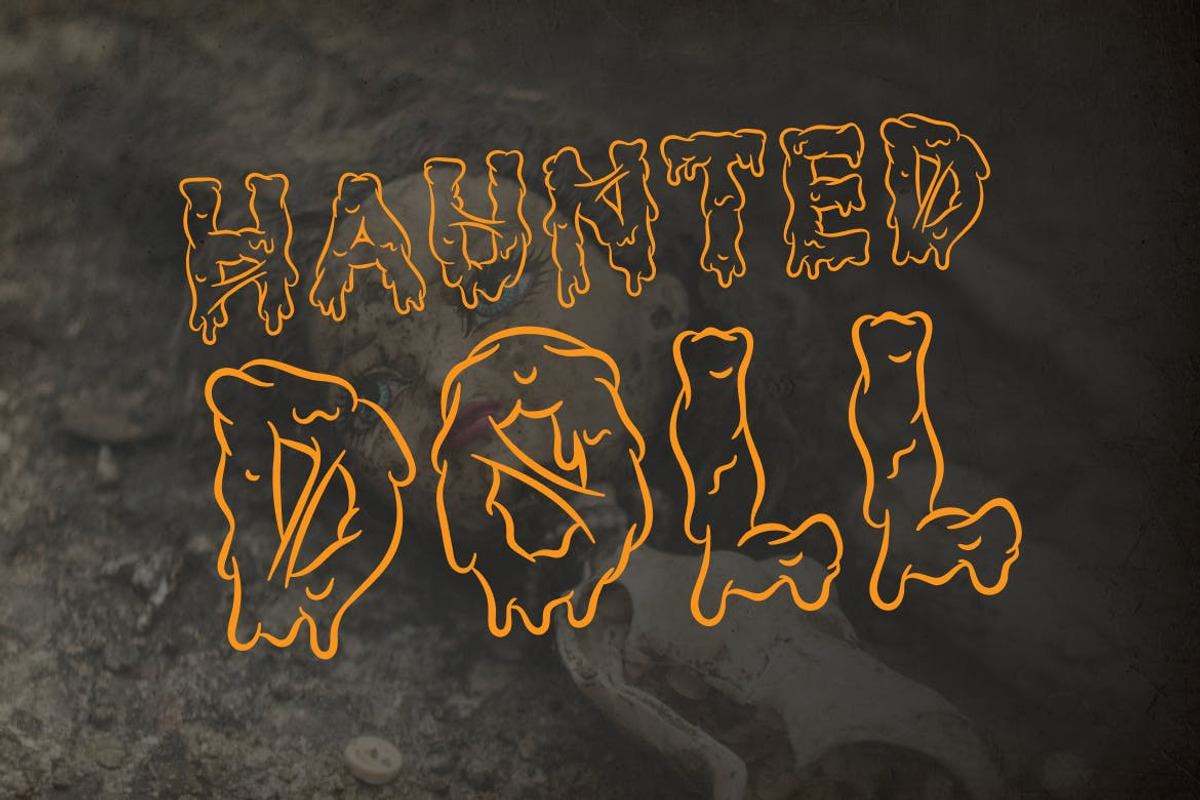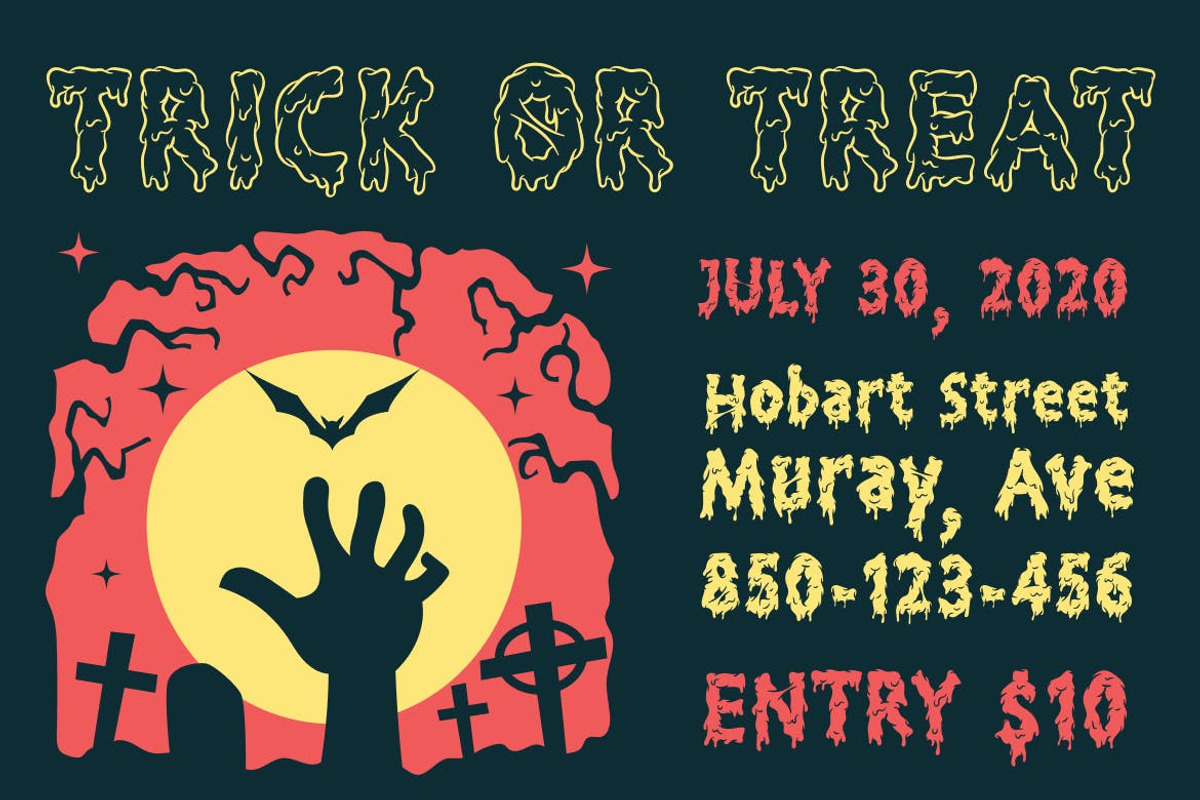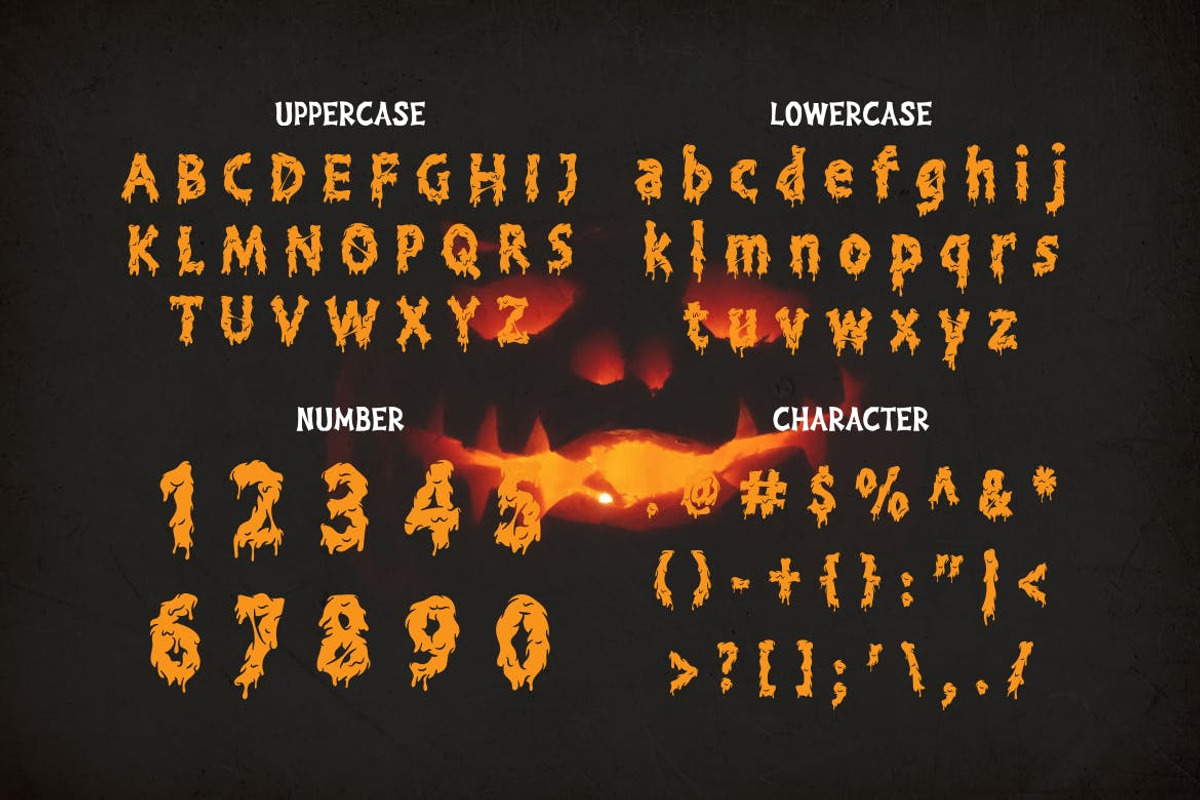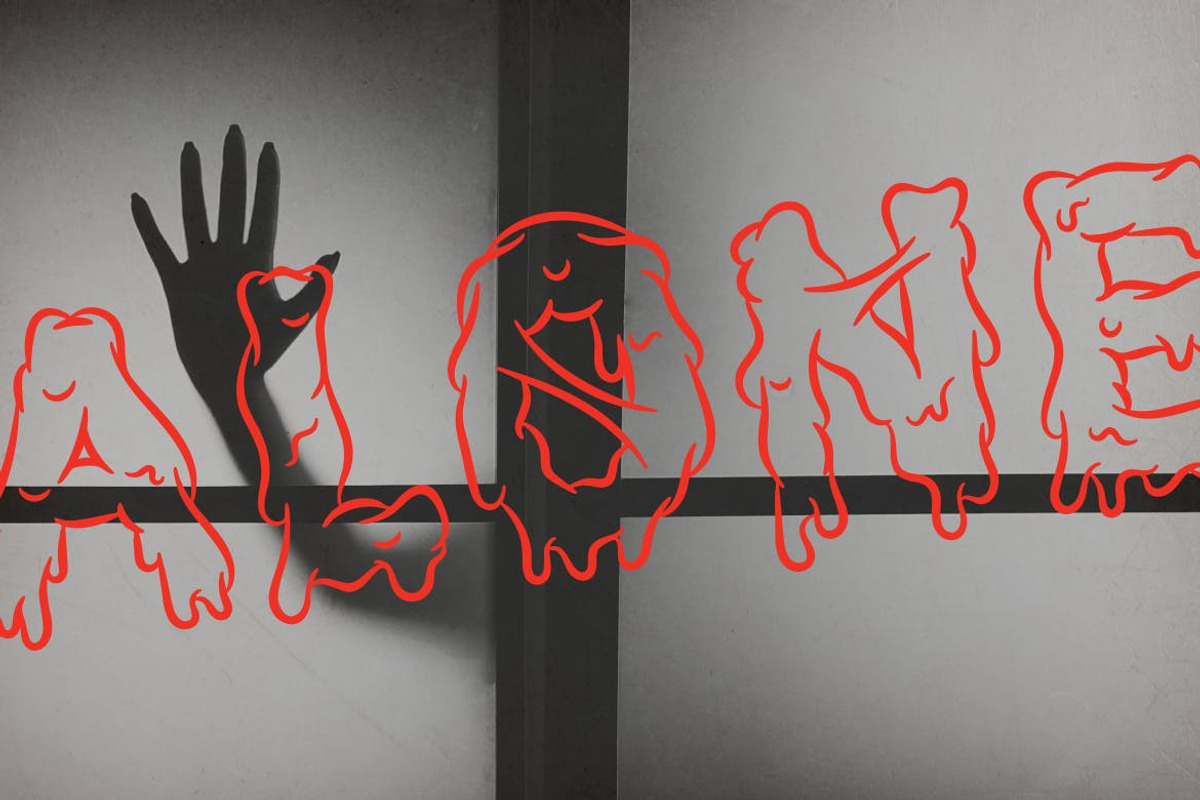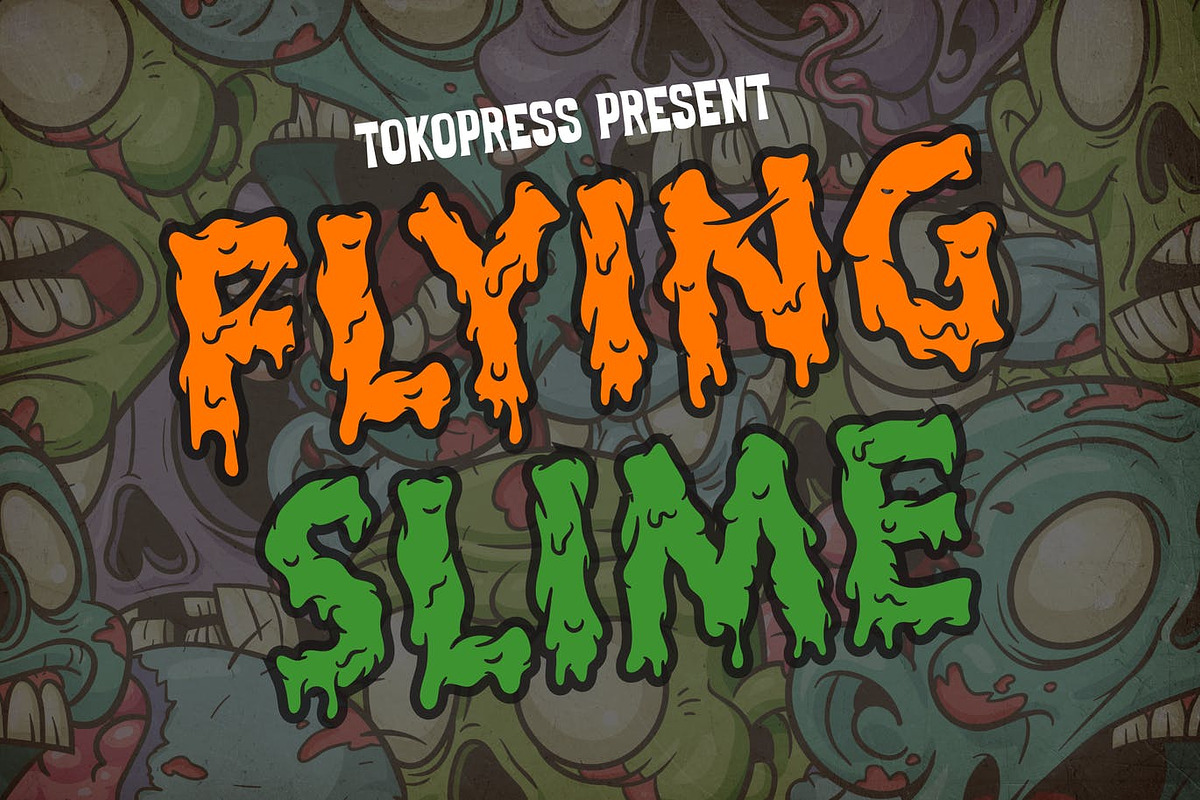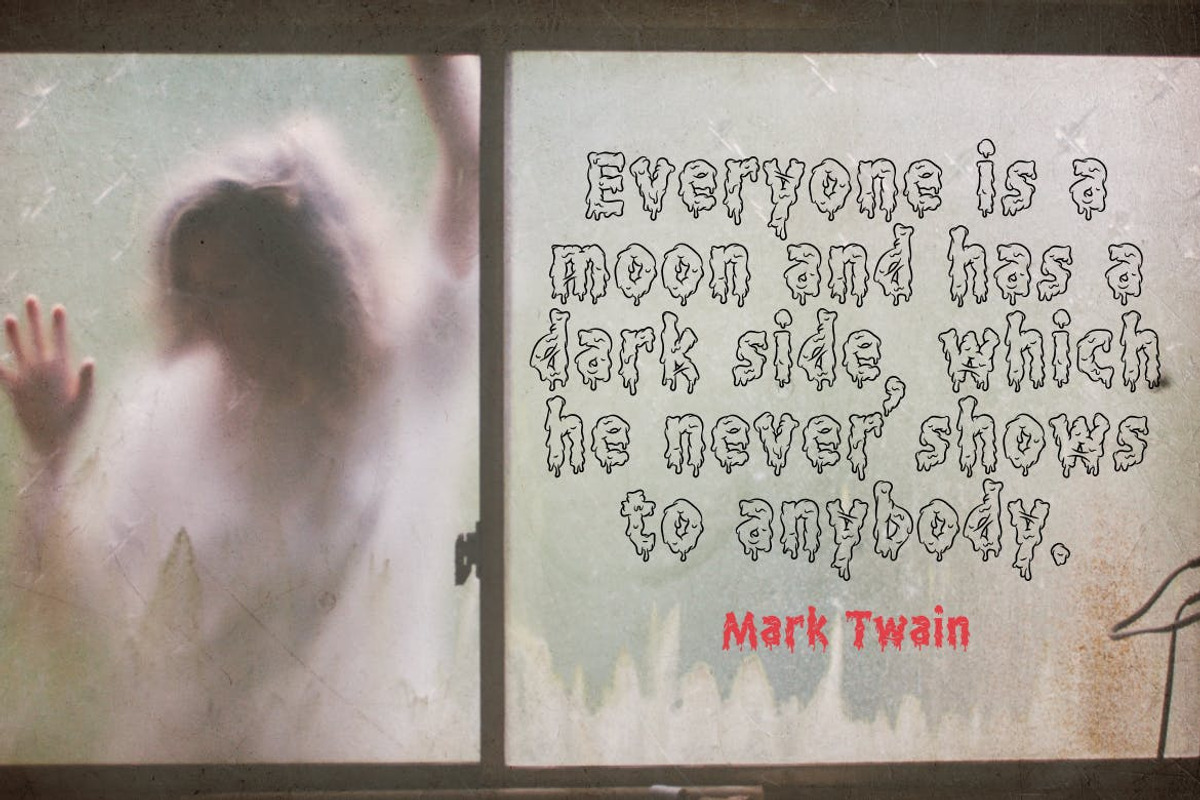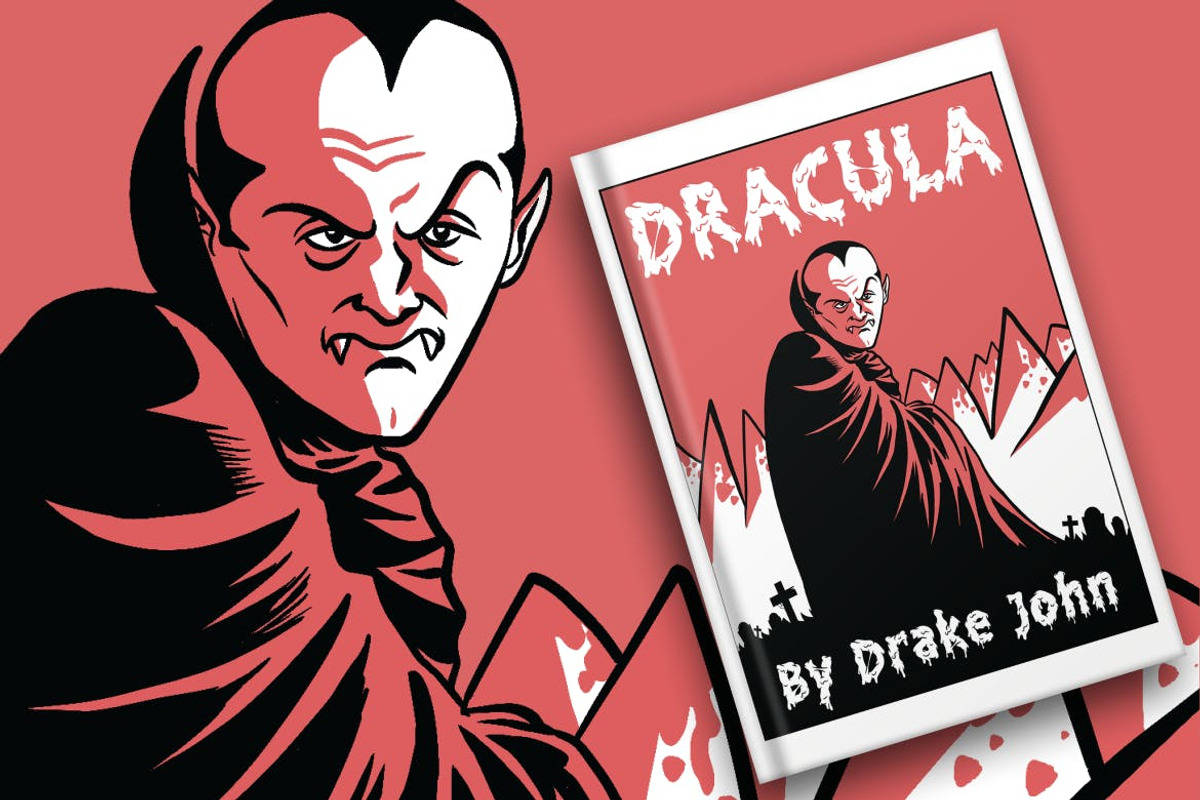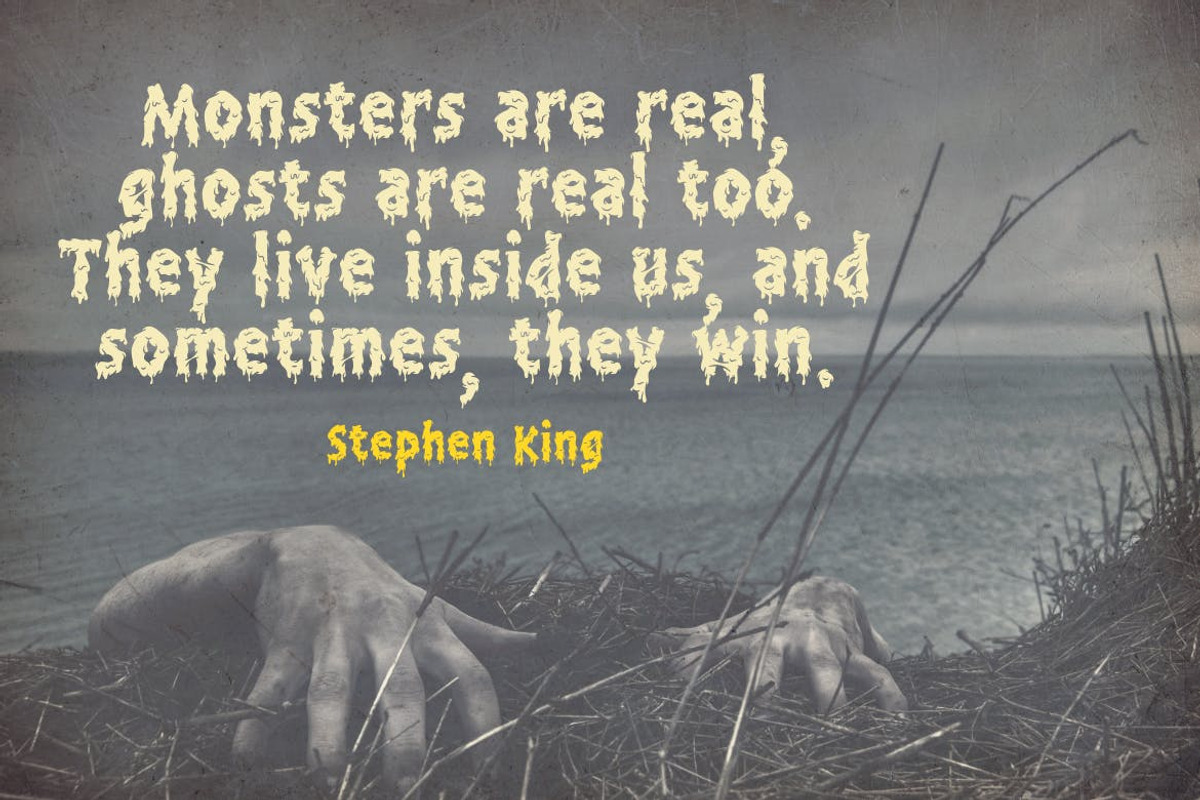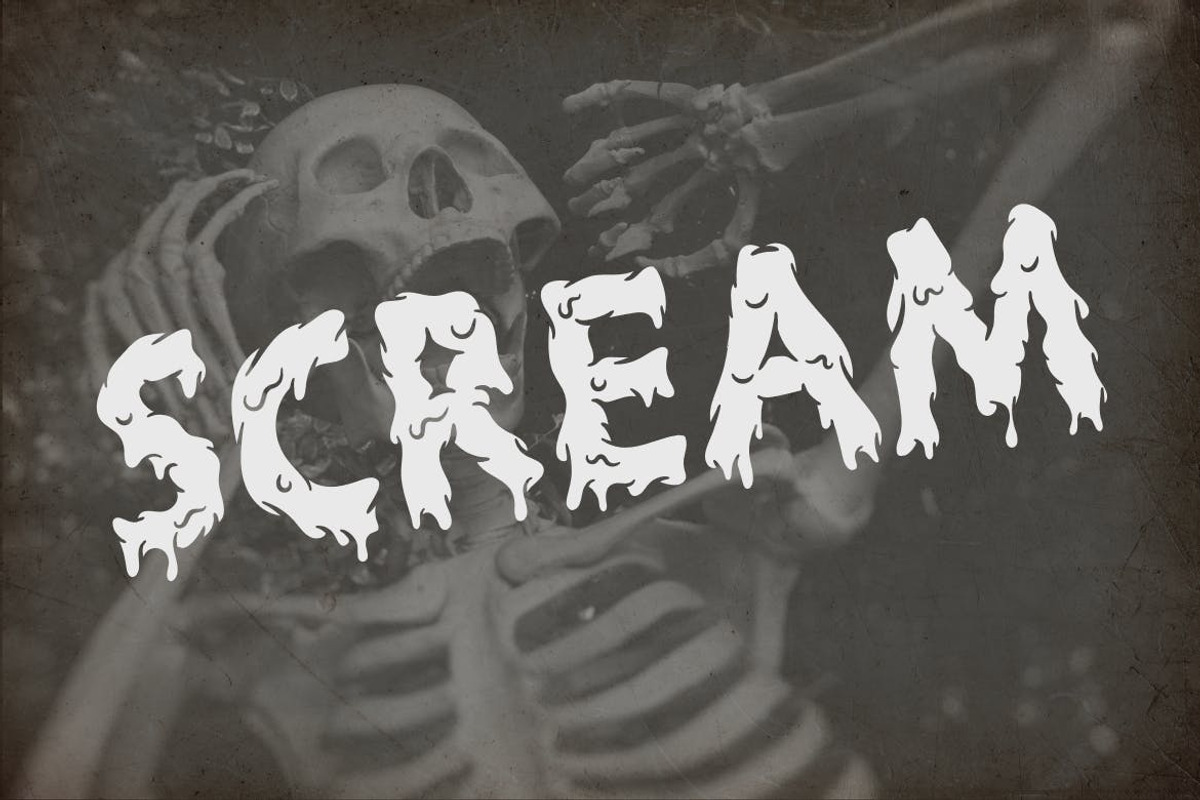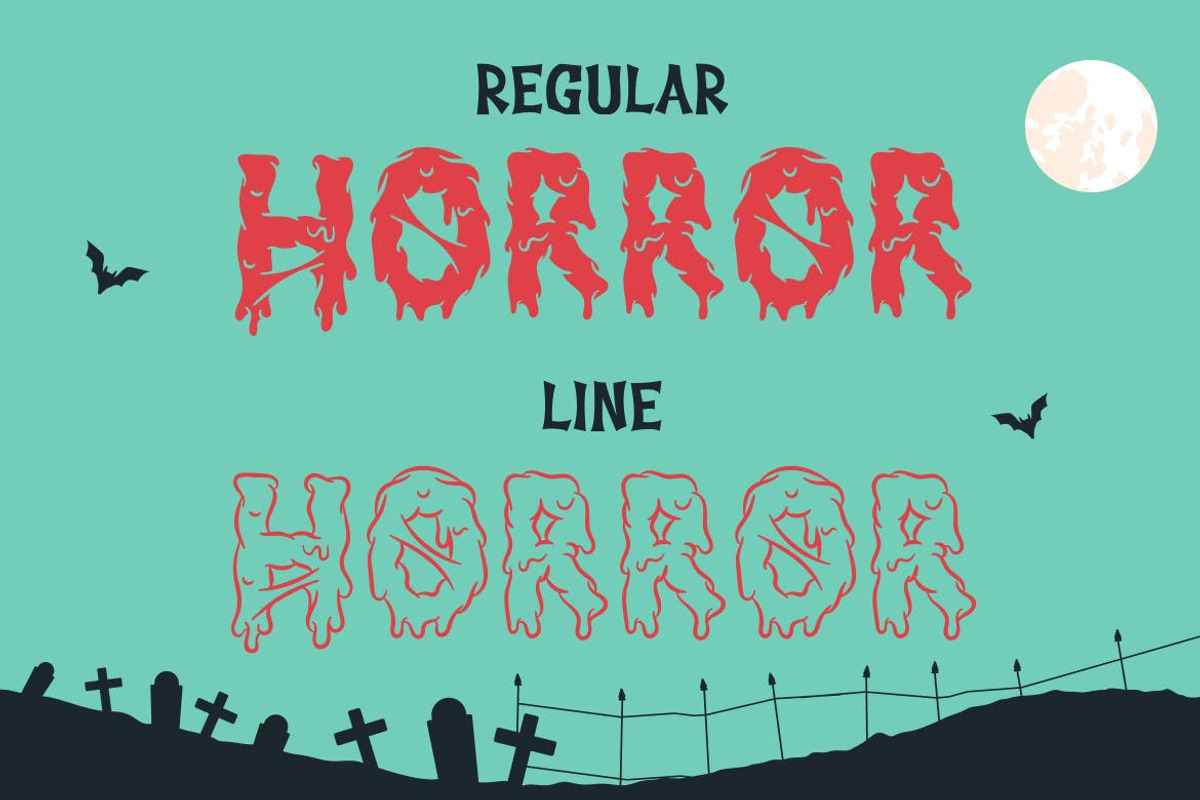
Flying Slime - Spooky Font
Flying Slime - Scary Font
Melted flesh and protruding bones from a walking dead are haunting the city.
Suit perfectly for mystery gaming market audiences, Halloween poster, movie title, fun restaurant/ cafe menu, magazine, youtube covers, youtube thumbnails, social media page covers and so on...
- Regular and Line version